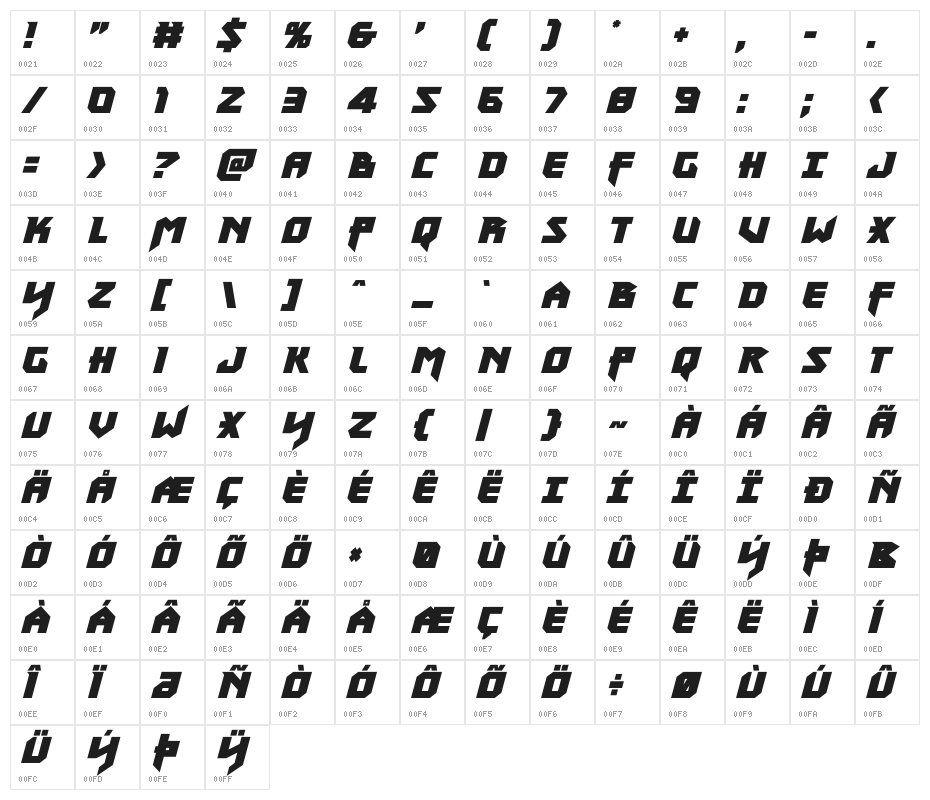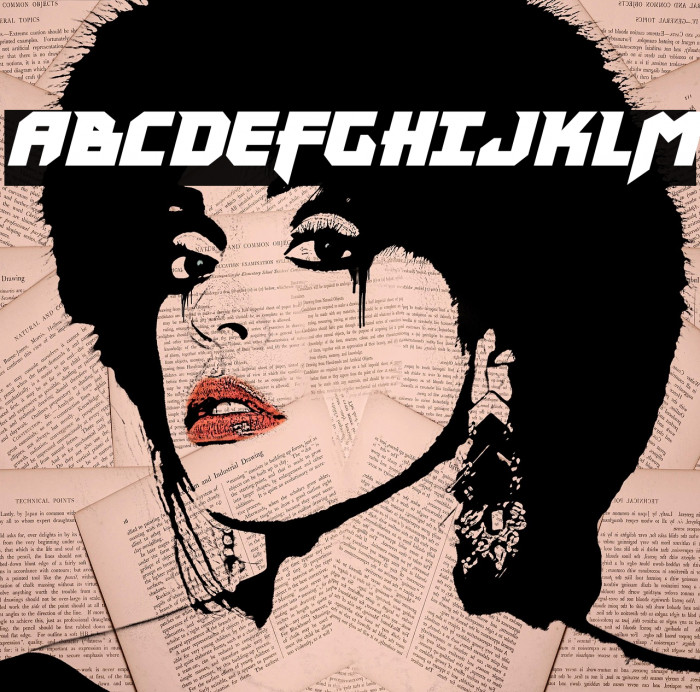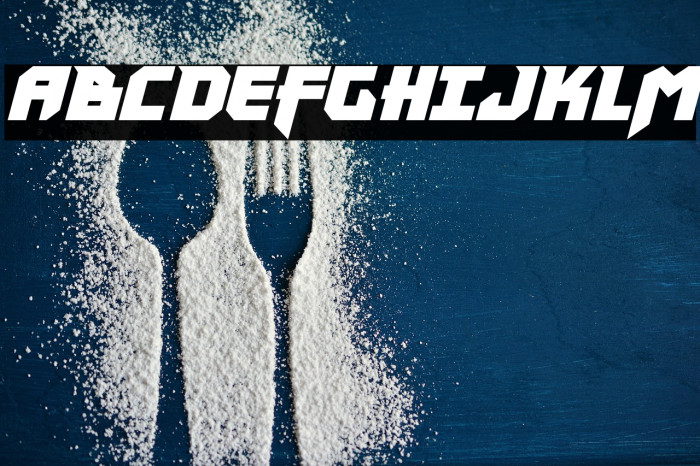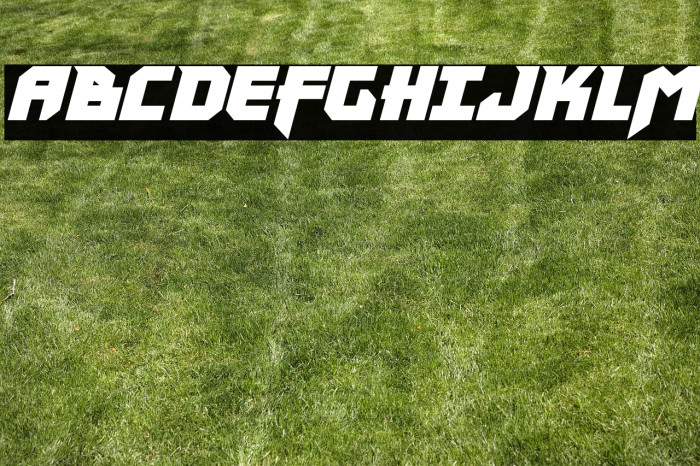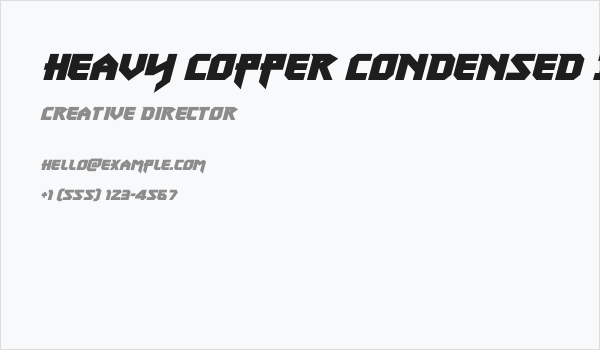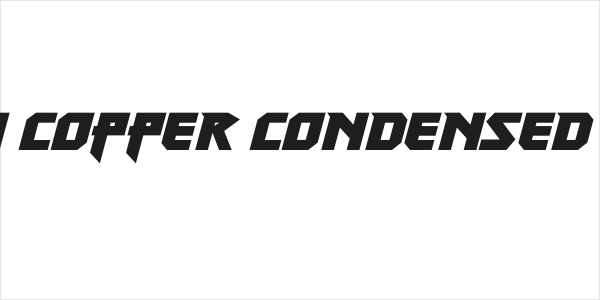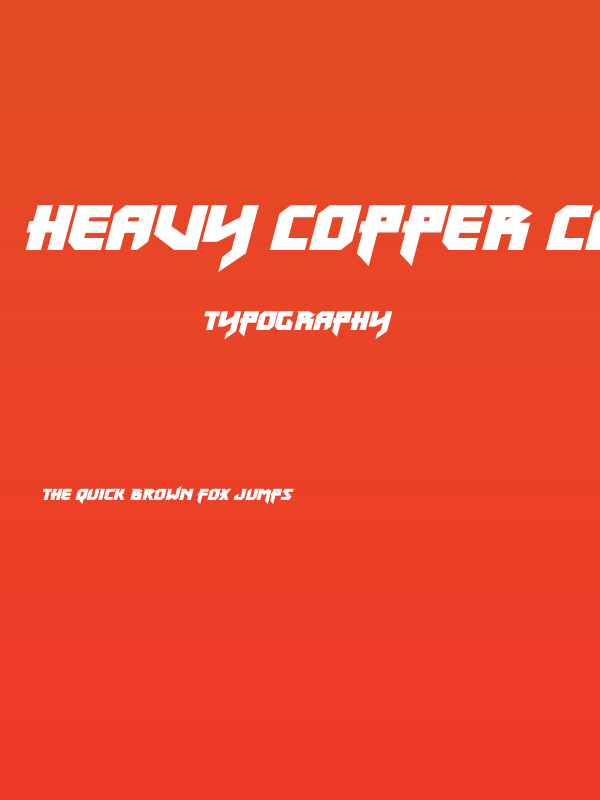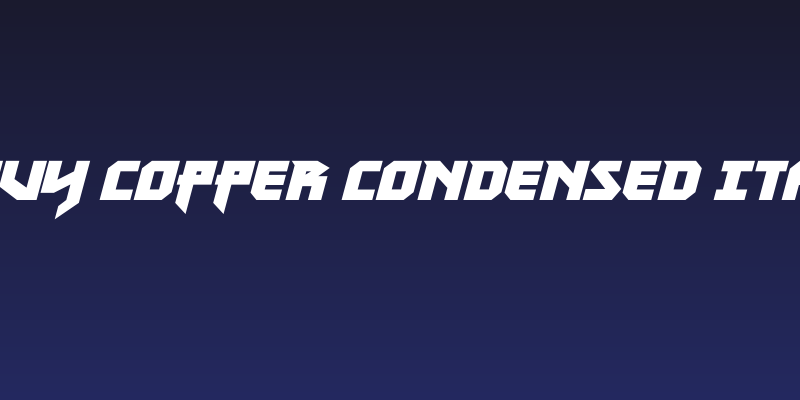
Heavy Copper Condensed Italic Font
Heavy Copper Condensed Italic Description
This font features a bold and dynamic design with sharp, angular edges that give it a futuristic and aggressive appearance. The characters are condensed, enhancing the compact and powerful look. The italic style adds a sense of motion and energy, making it ideal for attention-grabbing headlines or branding. The uppercase and lowercase letters maintain a consistent style, with numbers and special characters following the same bold and angular theme. This font's unique style makes it stand out, perfect for projects that require a strong visual impact.
| Proposed Projects | Ideal for sports branding, video game titles, sci-fi movie posters, and dynamic advertising campaigns. |